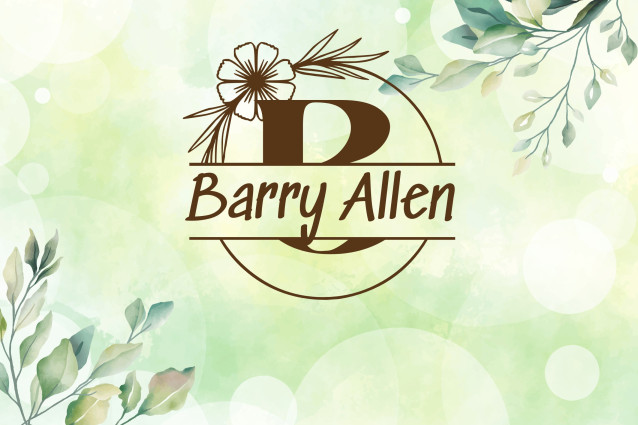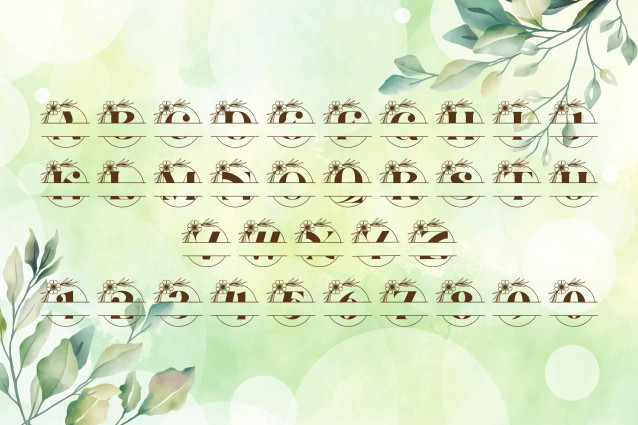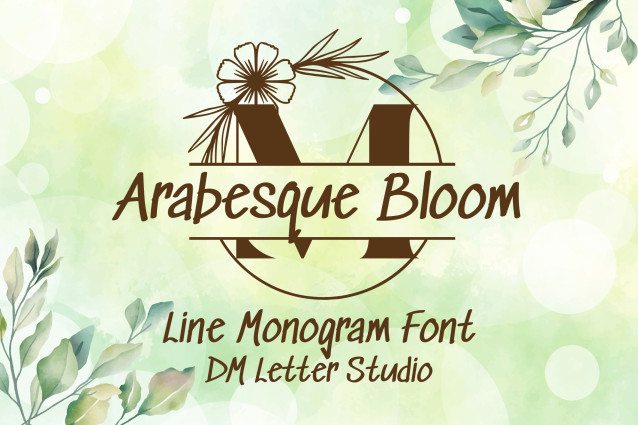
Arabesque Bloom Split Monogram Font
Arabesque Bloom Split Monogram is a luxurious and intricately designed serif font featuring uppercase letters split with a graceful space for personalization. Each character is adorned with ornate floral and arabesque embellishments, creating a perfect balance of romantic charm and regal elegance. Ideal for custom nameplates, wedding signage, boutique branding, and upscale stationery, this font adds a refined touch to every personalized project.